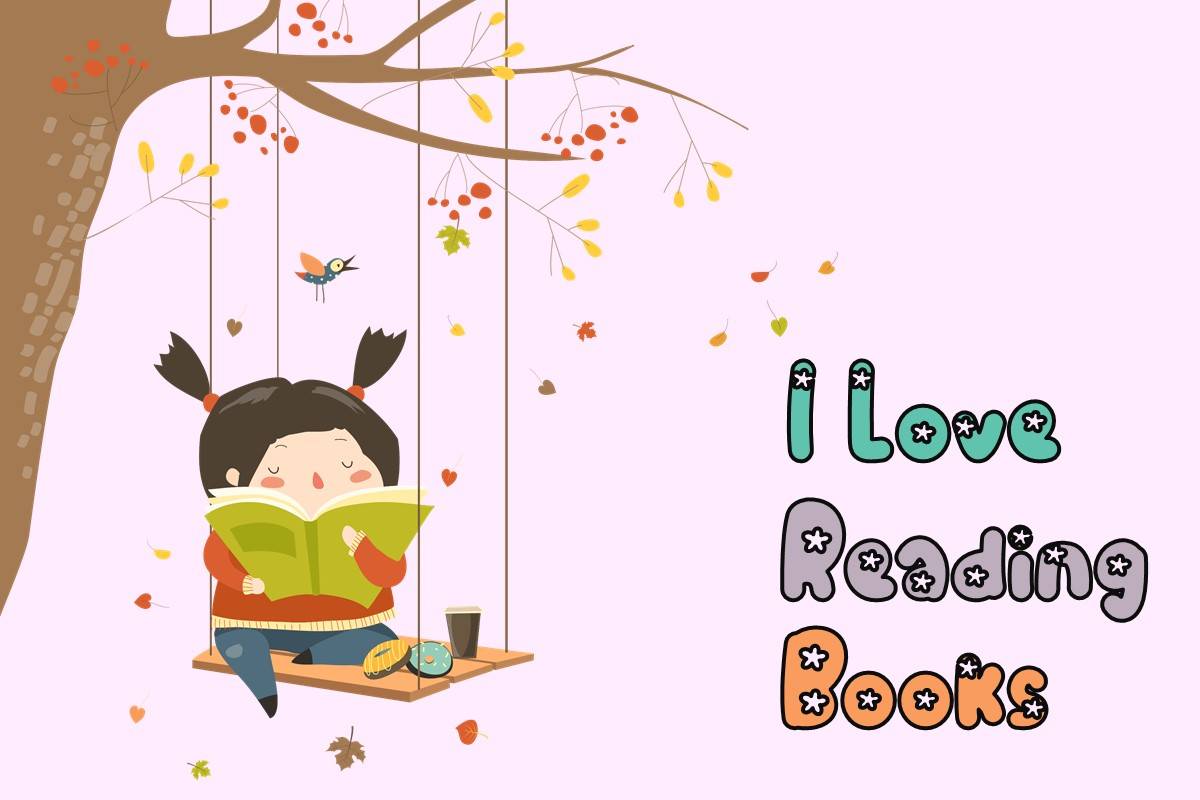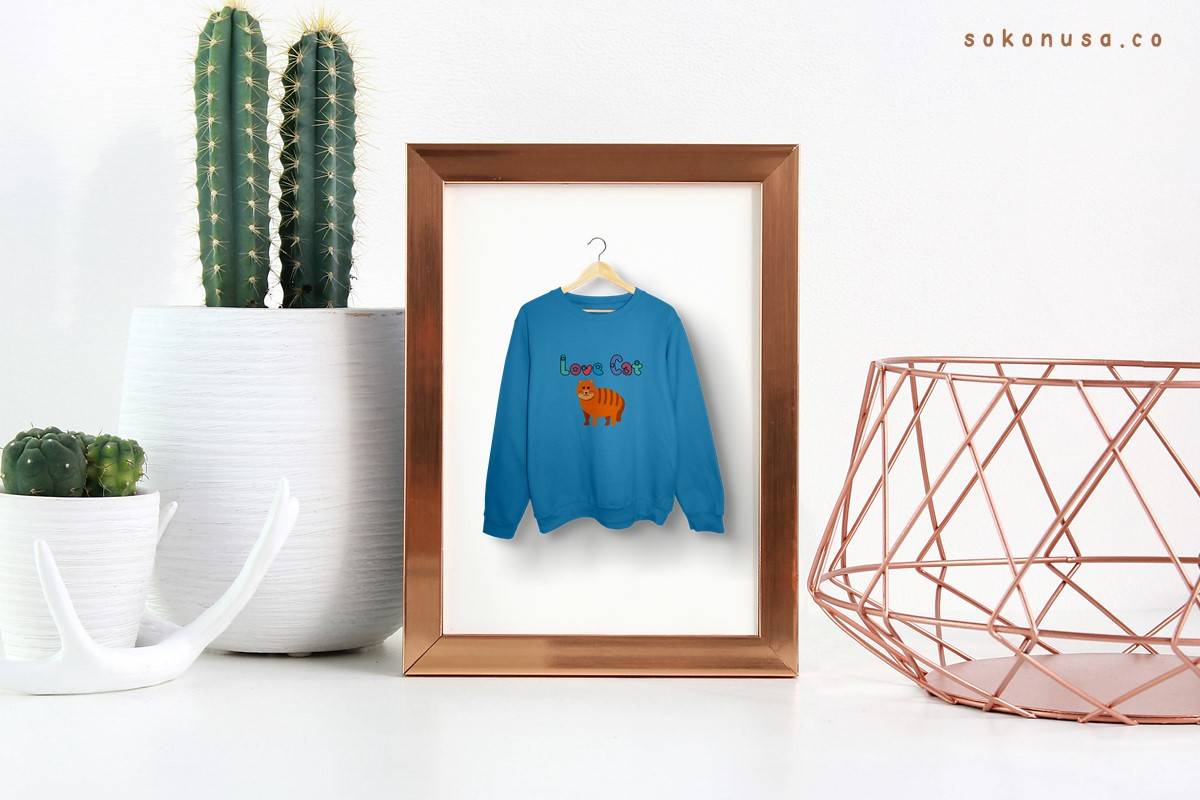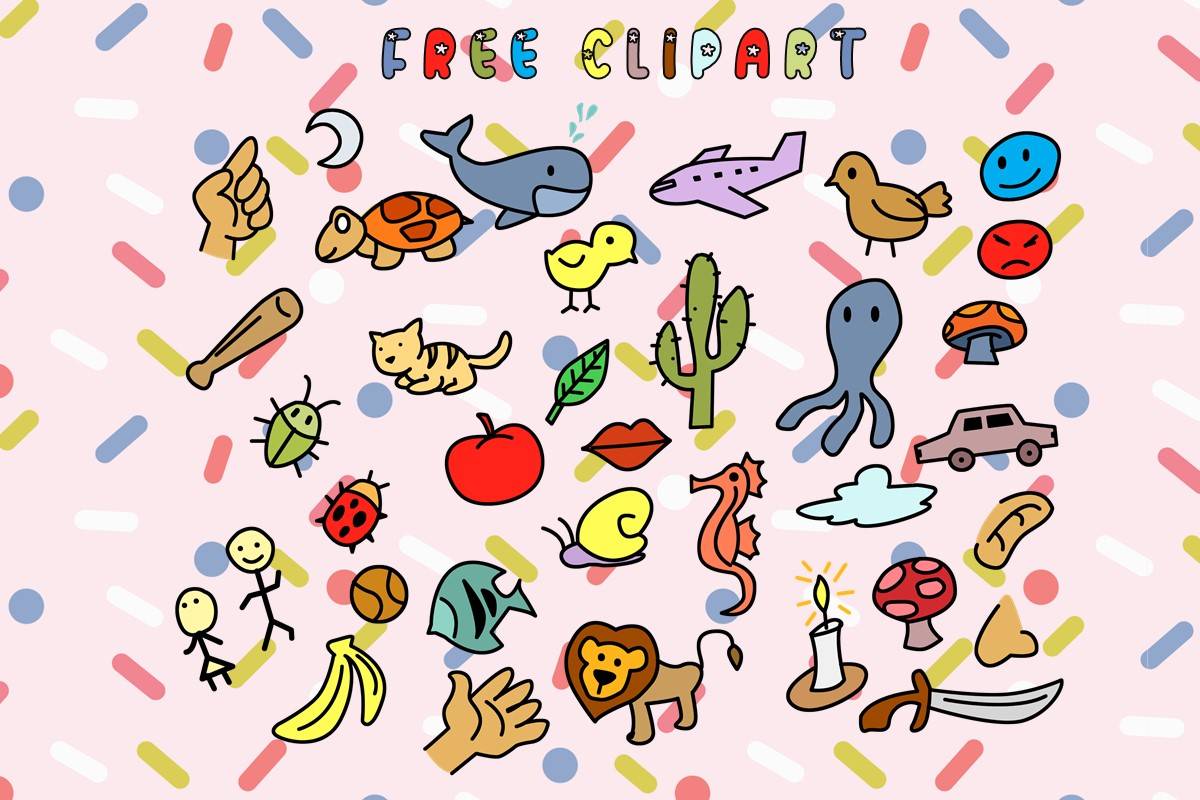
Lily Clover is a playful, bold sans serif font with rounded, thick letterforms that feature charming clover-shaped cutouts throughout each character. Its bubbly and whimsical style creates a friendly and casual vibe, making it perfect for fun, lighthearted designs such as children's projects, party invitations, and informal branding. This font stands out in headlines and logos where a unique, joyful personality is desired.
Lily Clover Font
About Lily Clover Font